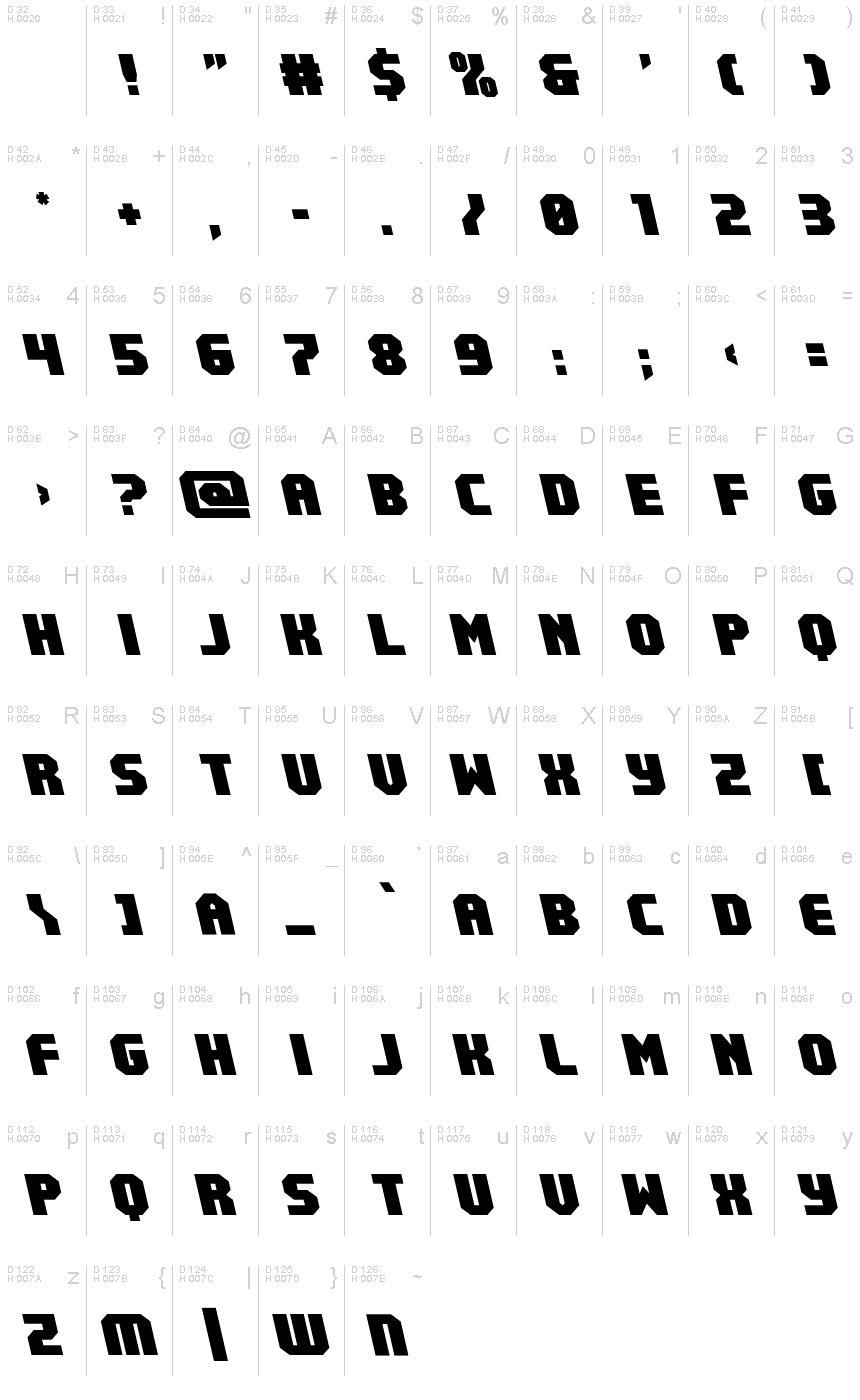
Metal Sentinel Semi-Leftalic
Metal Sentinel Semi-Leftalic is a bold, techno display font designed by Daniel Zadorozny. It has a condensed structure and unique semi-leftalic style which is perfect for creating eye-catching titles and logos. Use it to give your projects an edgy, futuristic feel - perfect for sci-fi movie posters, gaming designs or graffiti art. With its distinctive look, Metal Sentinel Semi-Leftalic will make any design stand out from the crowd!